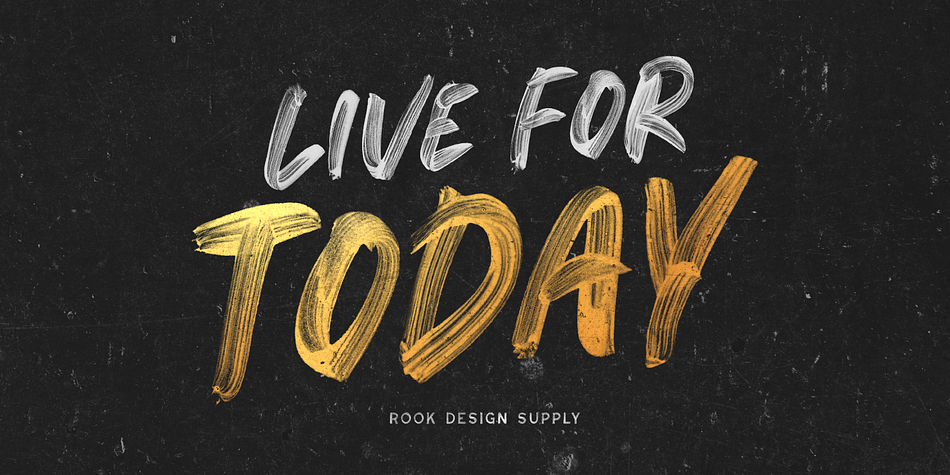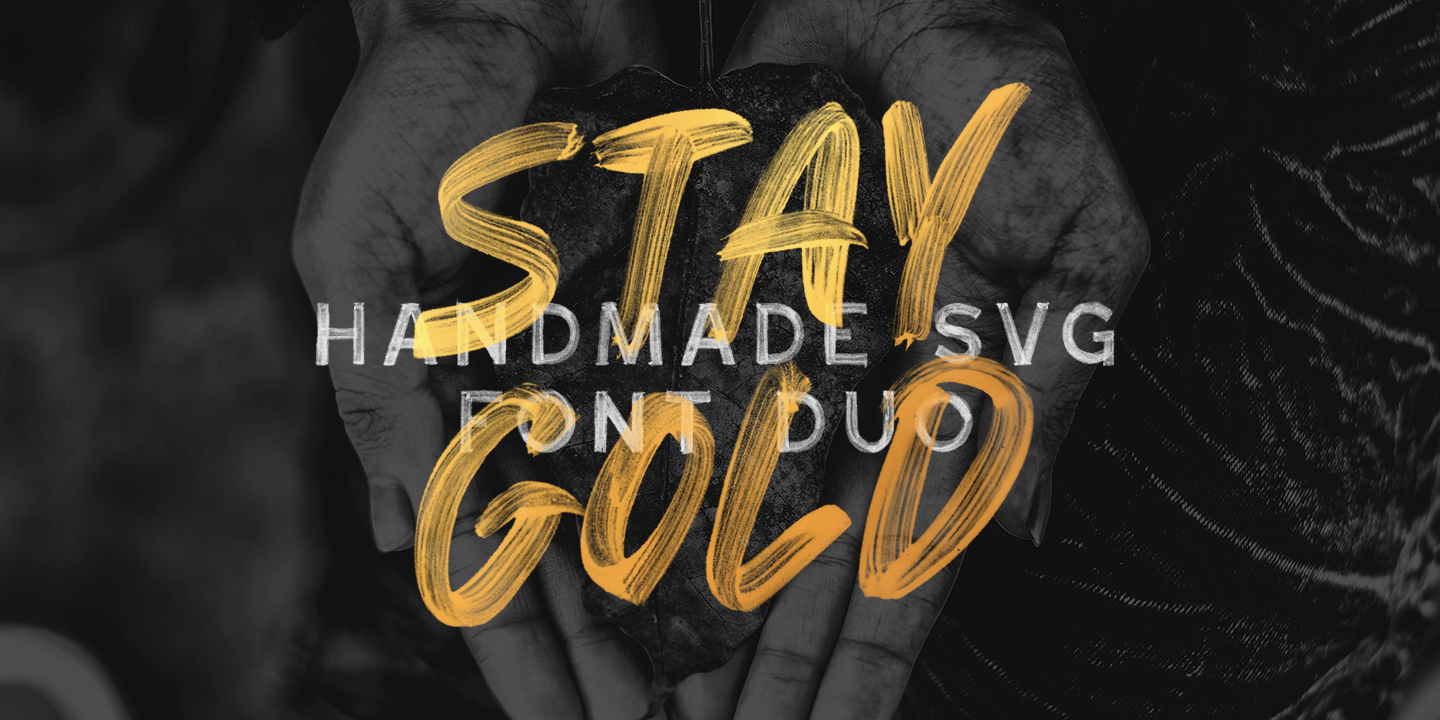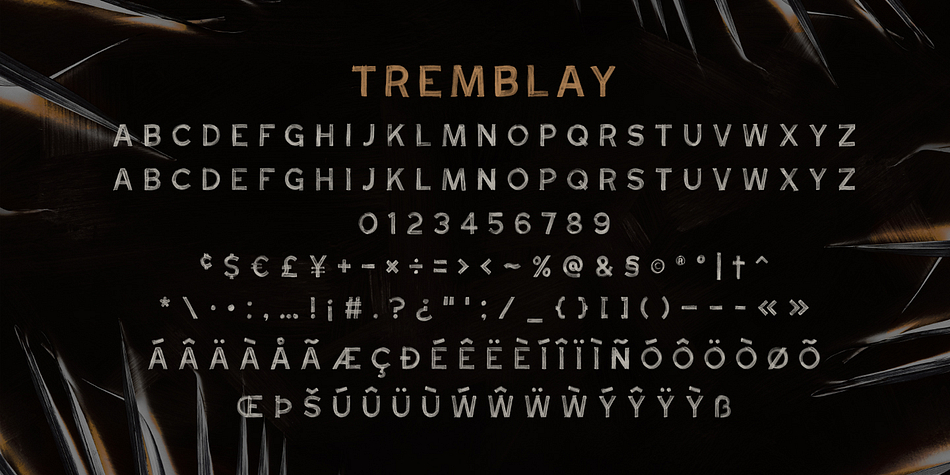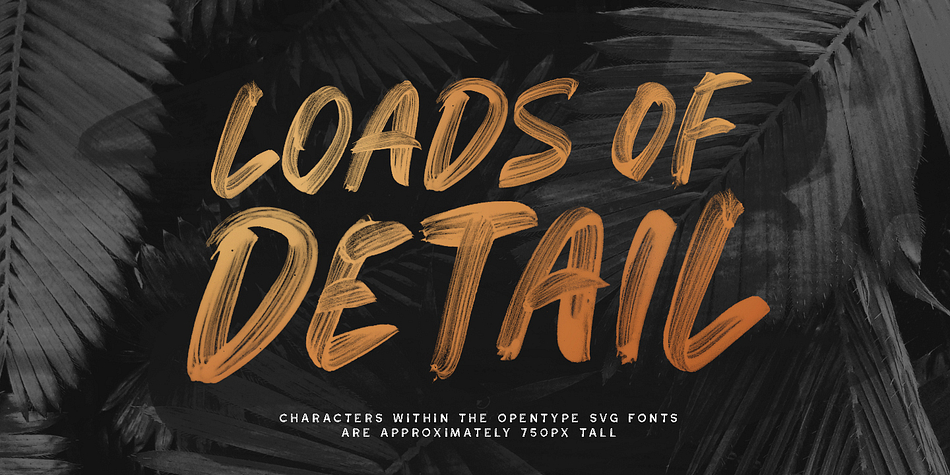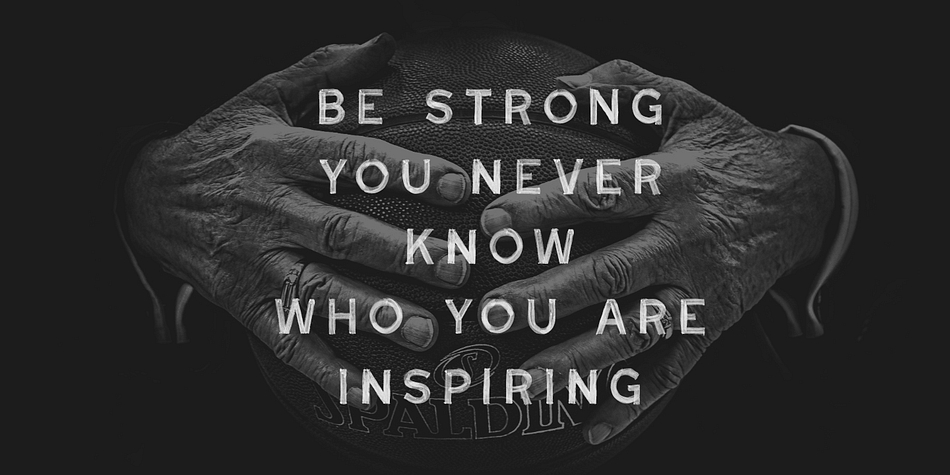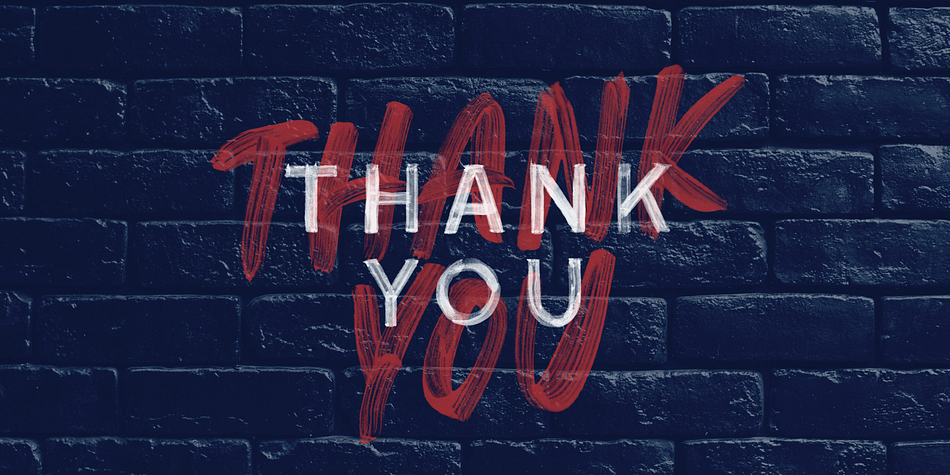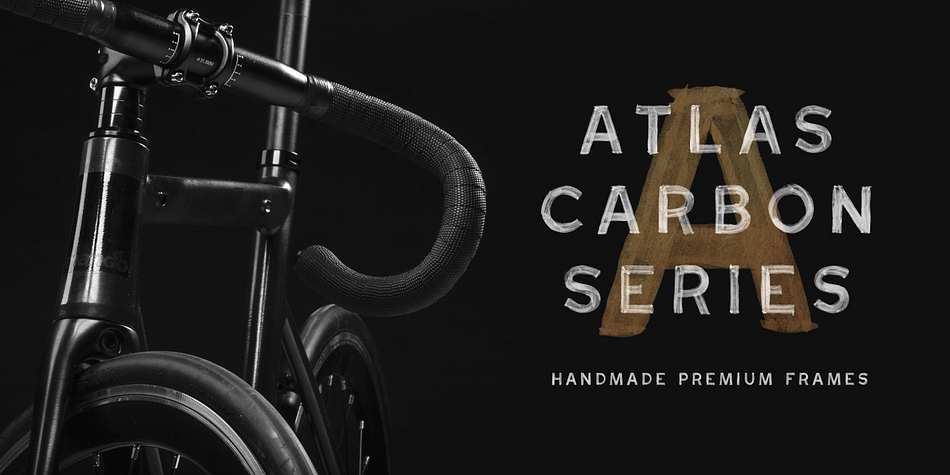
Designed by Greg Nicholls, Stay Gold SVG Font Duo is a brush display and hand display font family. This typeface has two styles and was published by Rook Design Supply.
With Stay Gold, you get two Opentype SVG fonts for the typical price of one. Each font takes on a life of its own, but they work great paired together which is why I didn’t want to split them up. Instead of vectorizing the letters, these fonts use actual images and transparency effects in order to get the quality that you see. This is all made possible thanks to the latest developments of the OpenType-SVG format, and the integration of that technology into Photoshop CC 2017 and Illustrator CC 2018. these fonts install like any other font, and can be used in any color, on any background.
Foundry | Rook Design Supply |
Styles | Brush Display, Hand Display |
Designer | Greg Nicholls |